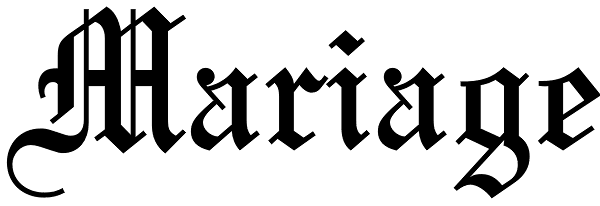
Mariage
Morris Fuller Benton, the principal designer of the American Type Founders, designed Mariage in 1901. Mariage, which has been sold under a plethora of different names during the last century, is a blackletter typeface belonging to the Old English...
Mariage
Mariage Pro